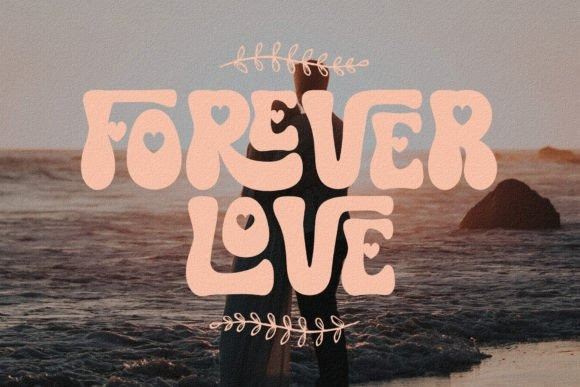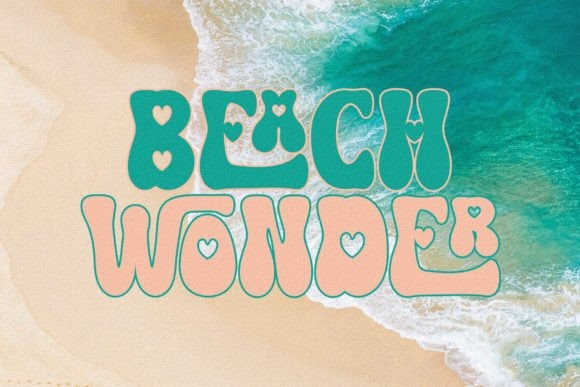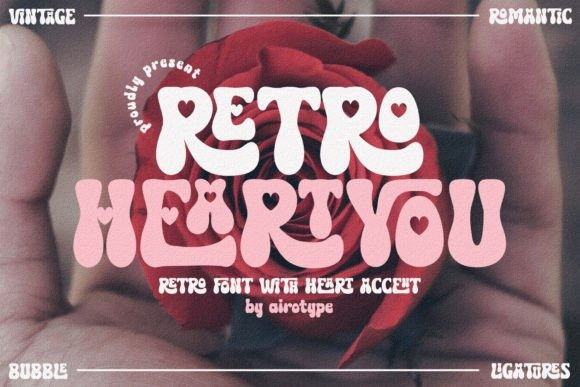
Retro Heart You Font
Retro Heart You Font is a sweet and fun display font with an adorable groovy accent. Quirky, whimsical, and a little funky this font has the potential to elevate any creation while adding a groovy, hippie touch.